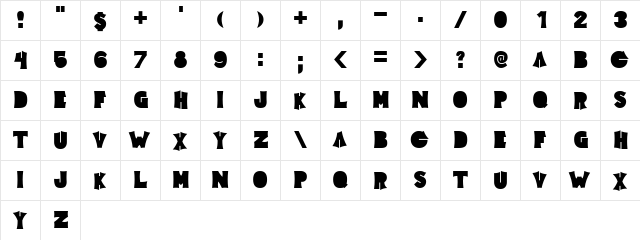
Electric Pickle Bold
Design Context for Electric Pickle Typeface
Electric Pickle has a distinctly futuristic character, with geometric precision and clean angles that feel at home in technology, gaming, and sci-fi contexts. Its bold stroke weight gives it real presence on the page.
Pro Tip: Try Electric Pickle with generous letter-spacing in UI labels and navigation — the geometric forms benefit from room to breathe.